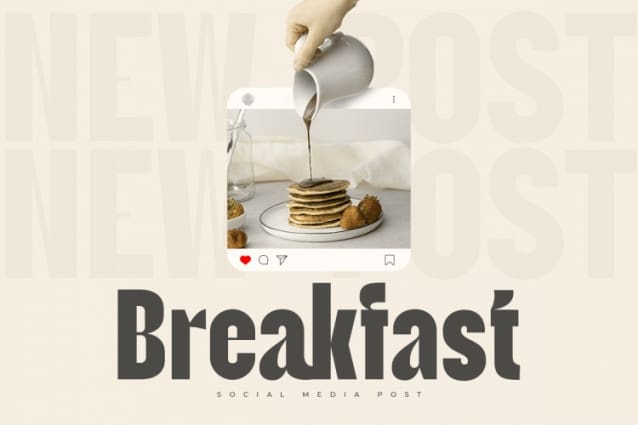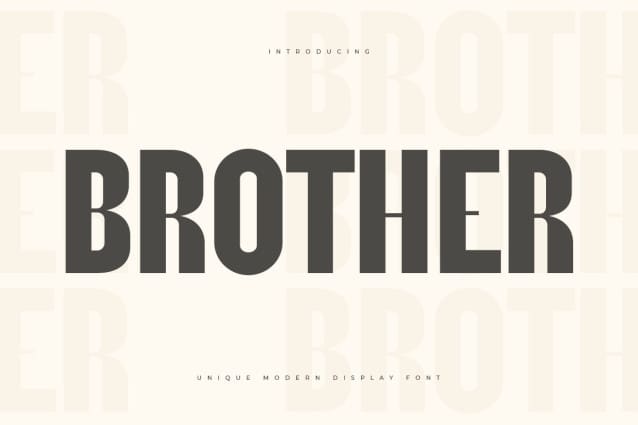
Brother Sans Font
Brother Sans Font is a High-Contrast font that we created special for elegant, luxury, modern, wedding, branding needs, font that you can combine to get any variations and unique shapes easily just in seconds with choose alternates of them. It is a serif display font with moderate contrast that perfect for branding projects, logo, wedding designs, social media posts, advertisements, product packaging, product designs, label, photography, watermark, invitation, stationery, and any projects, it makes with a high level of legibility.